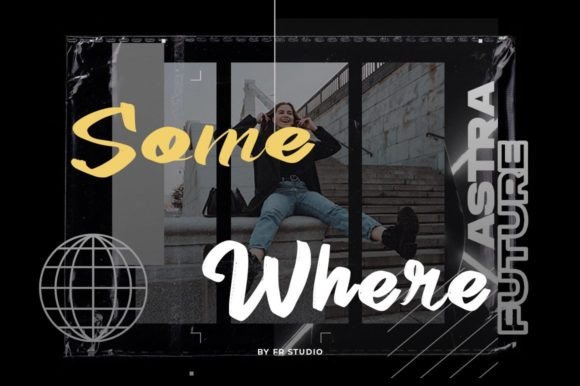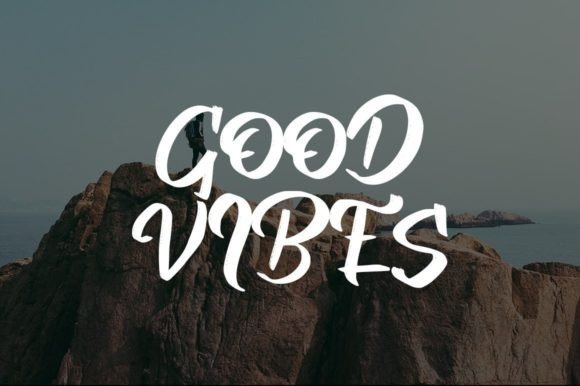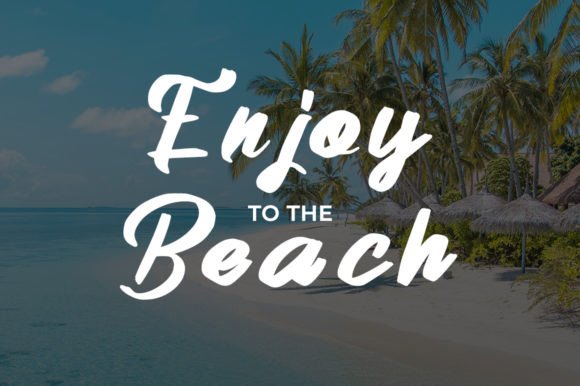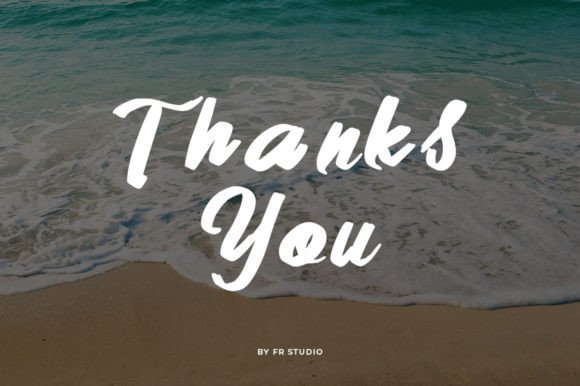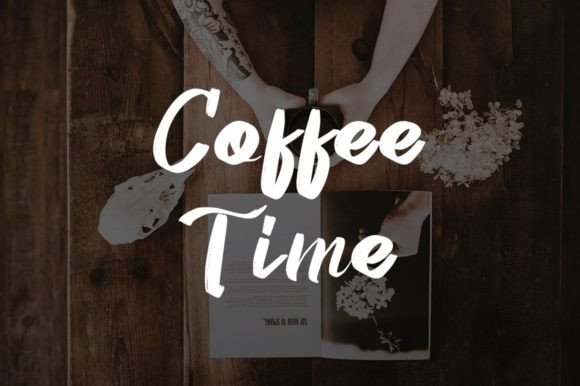
Hello Summer Font
About Hello Summer Font
“Hello Summer” is an exquisite and flowing handwritten font that seamlessly combines a classy calligraphic influence with a contemporary and fresh feel. This font is designed to exude elegance, making it a versatile choice for various projects. As you explore the graceful curves and sophisticated strokes of “Hello Summer,” you’ll undoubtedly fall in love with its charm and unique aesthetic, taking your projects to the highest level of visual appeal.
The elegance of “Hello Summer” is evident in its flowing script, which gracefully moves across the canvas with a touch of sophistication. Each letter is meticulously crafted to maintain a sense of class, making this font suitable for a range of applications, from formal invitations to upscale branding projects.
While “Hello Summer” carries a classic calligraphic influence, it manages to stay contemporary and fresh. This blend of timeless beauty with a modern twist gives the font a dynamic quality, ensuring its relevance in various design contexts. Whether you’re working on traditional wedding invitations or creating sleek and stylish promotional materials, “Hello Summer” adapts effortlessly.
The flowing nature of the handwritten script in “Hello Summer” adds a personal and human touch to your projects. It evokes a sense of warmth and authenticity, creating a connection with your audience. This font becomes more than just a visual element; it becomes a key contributor to the emotional resonance of your designs.
Incorporate “Hello Summer” into your design toolkit, and witness how it elevates your projects to new heights. From sophisticated event invitations to contemporary brand identities, this font offers a perfect balance of elegance and freshness. Let “Hello Summer” be the creative catalyst that enhances the visual appeal of your projects, making them truly exceptional.